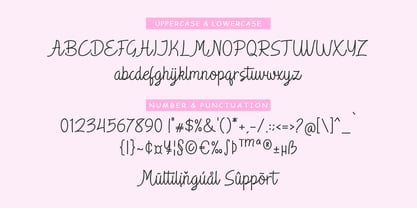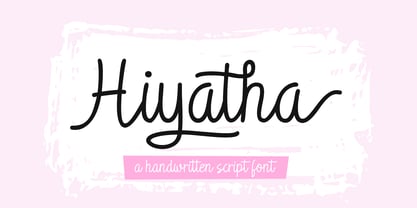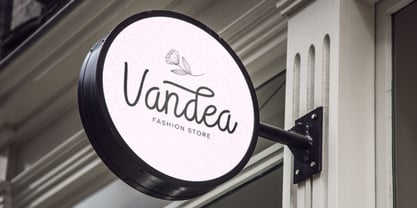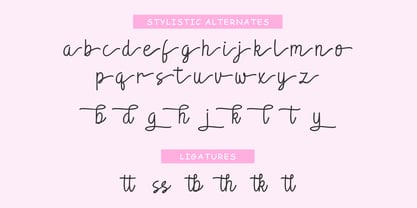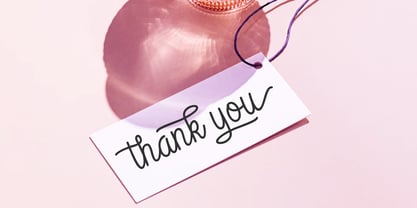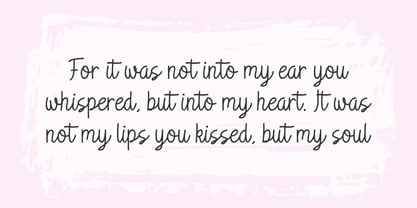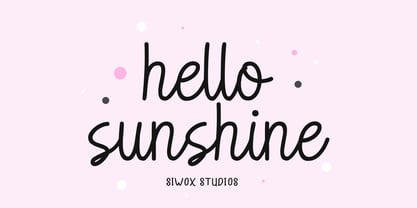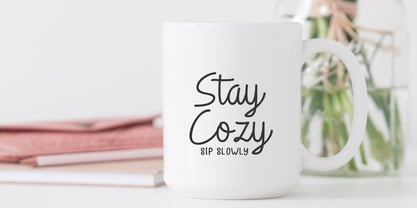
Hiyatha Script
by Siwox Studios
The Hiyatha Script Font Family was designed by Rizaldi Wandani and published by Siwox Studios. Hiyatha Script contains 1 styles. More about this family
Imbued with elegance and simplicity, Hiyatha Script is an exquisitely crafted handwritten font styled in monoline technique. It seamlessly enhances any design project you might have—from logos and branding elements to farmhouse-themed concepts. Ideal for a wide variety of purposes, Hiyatha Script makes a stunning addition to SVG files, lends professional finish to Canva or GoodNotes projects and is simply perfect for sticker, mug designs and beyond! With its versatility, this striking font is a key to unlock the desired visual appeal in any creative project.
Designers: Rizaldi Wandani
Foundry: Siwox Studios